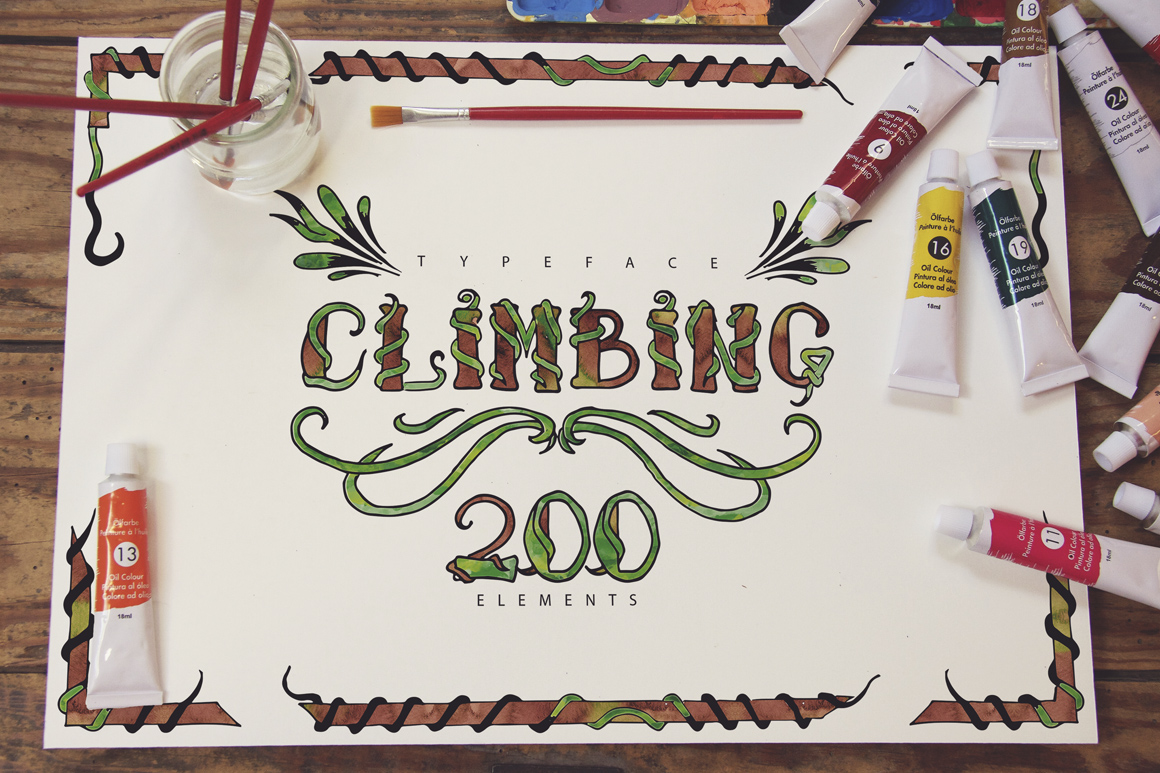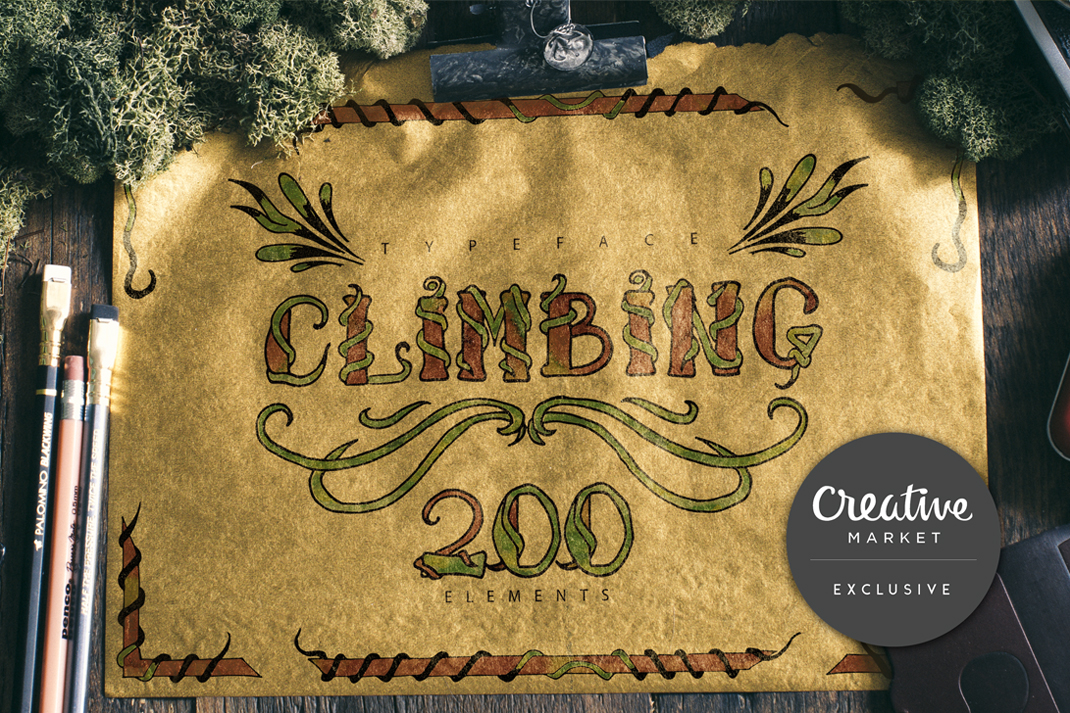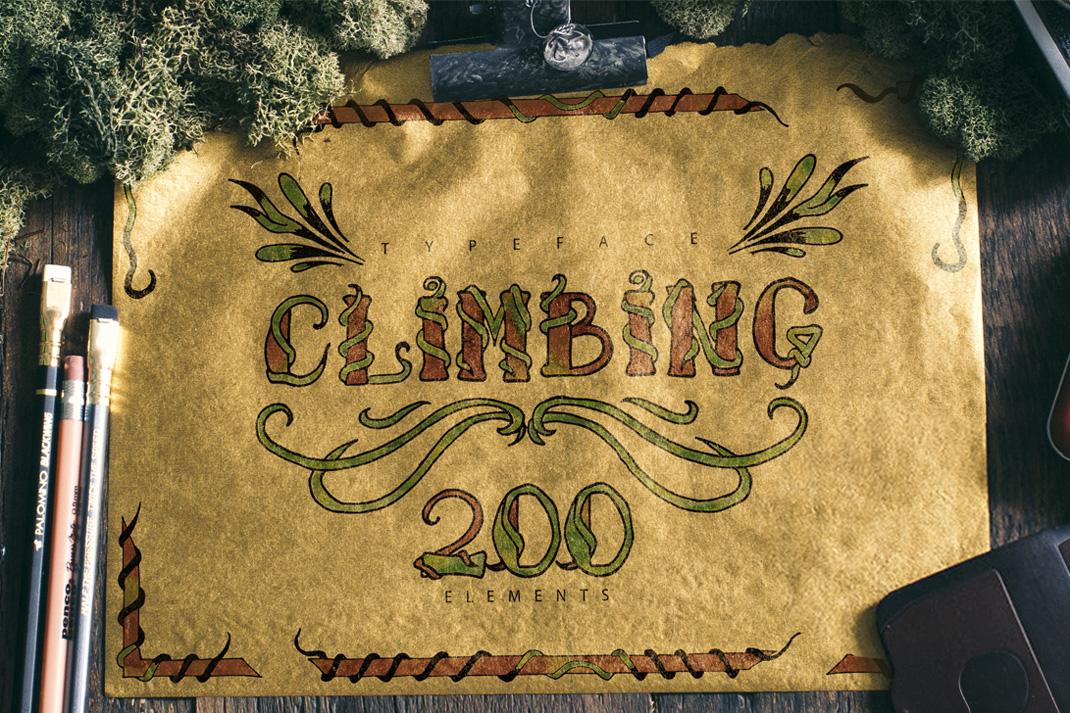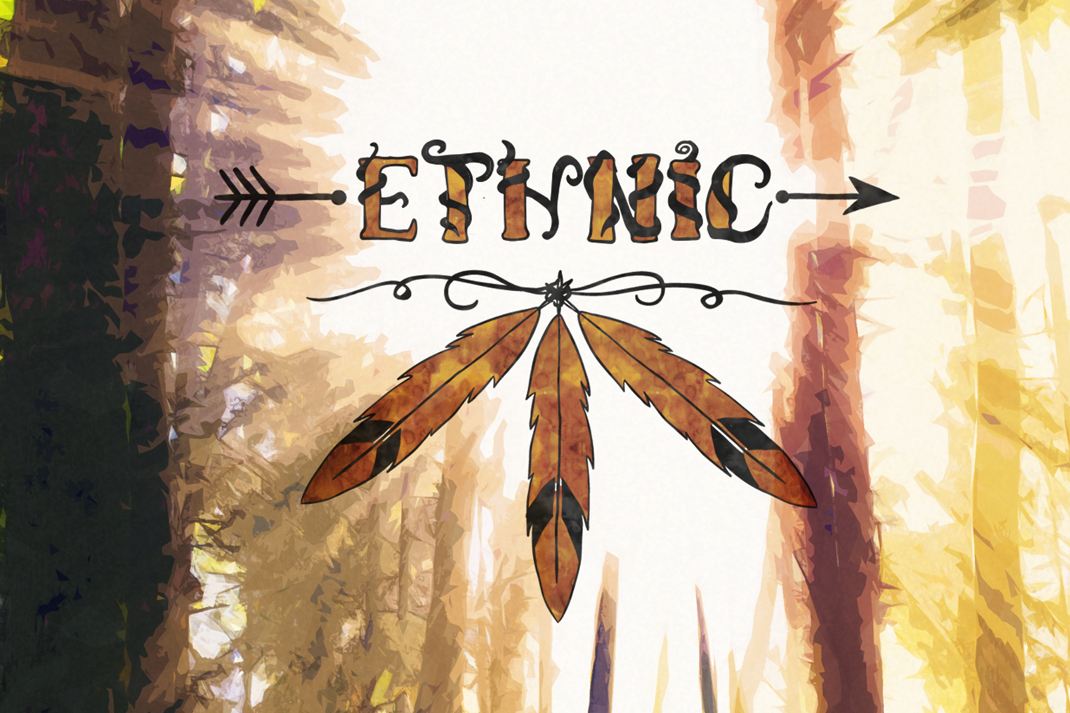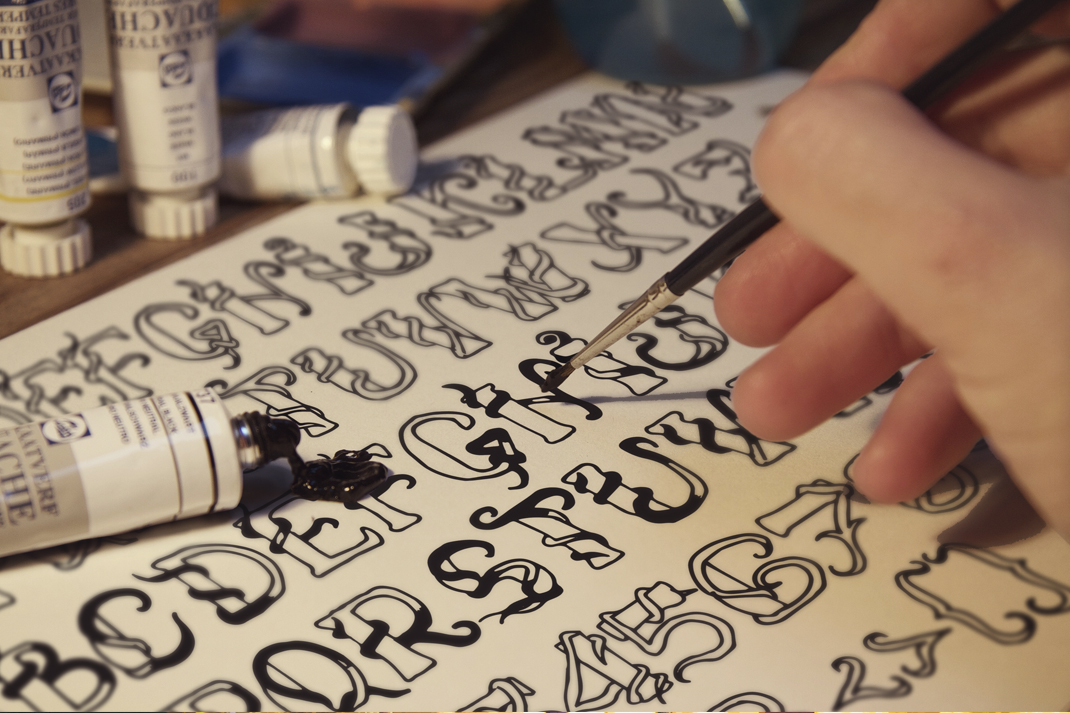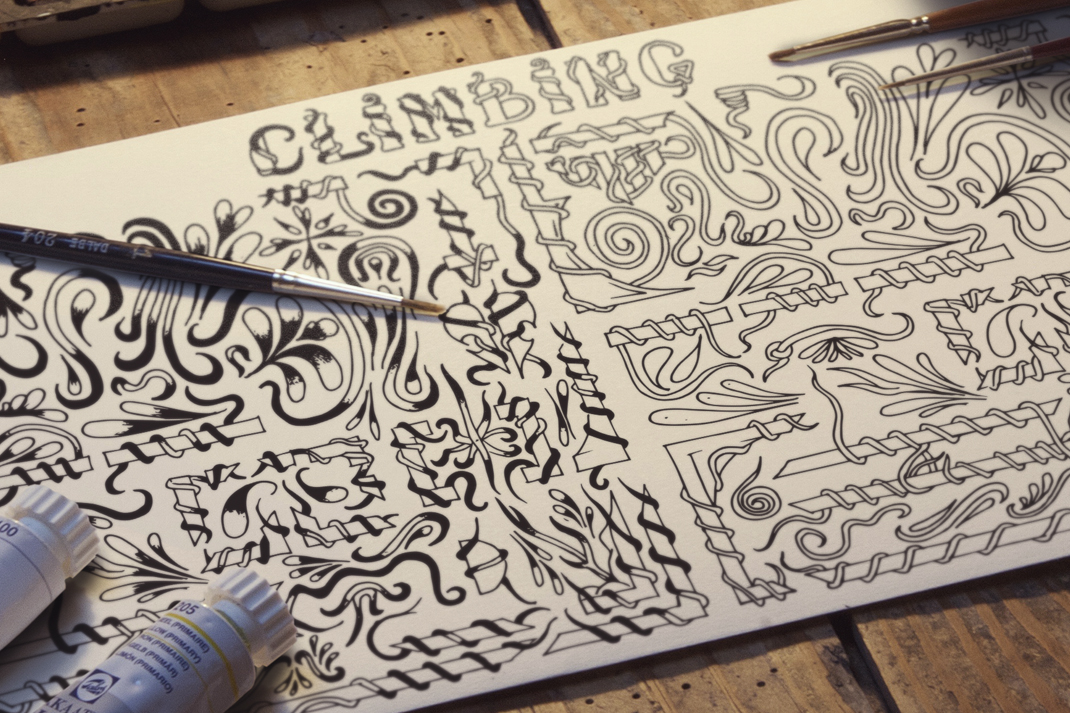
Climbing Font
About Climbing Font
Climbing Font is a super detailed floral font duo.
Every letter has been handcrafted on paper and digitally perfected. Every letter in these 2 beautiful fonts are decorated with ivy.